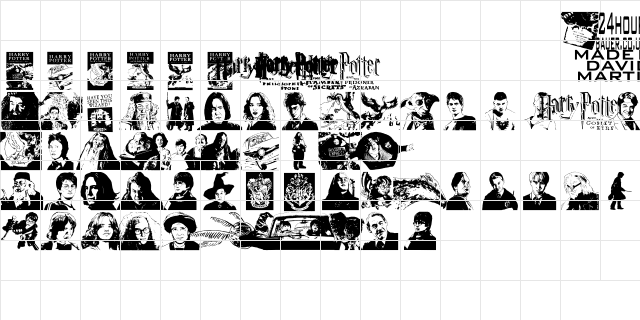
Harry Potter and the Dingbats Regular
Design Context for Harry Potter and the Dingbats
Harry Potter and the Dingbats is a composed and adaptable typeface that performs quietly and consistently across a wide range of design contexts.